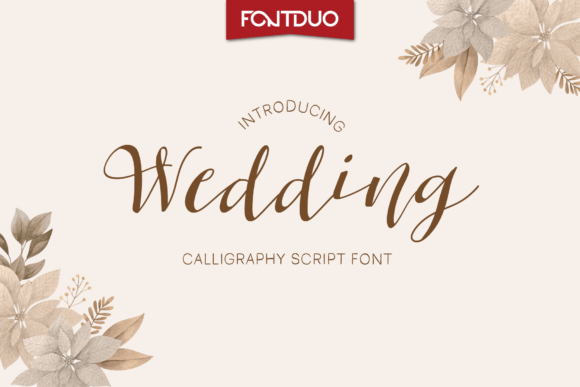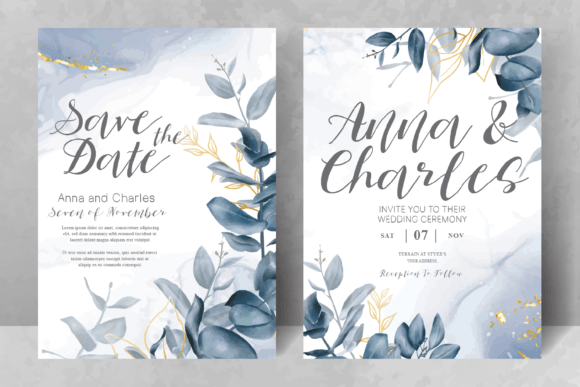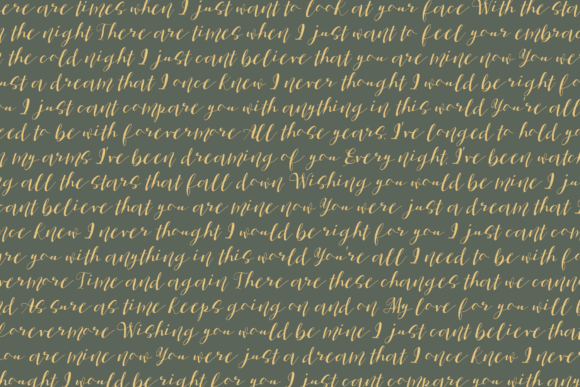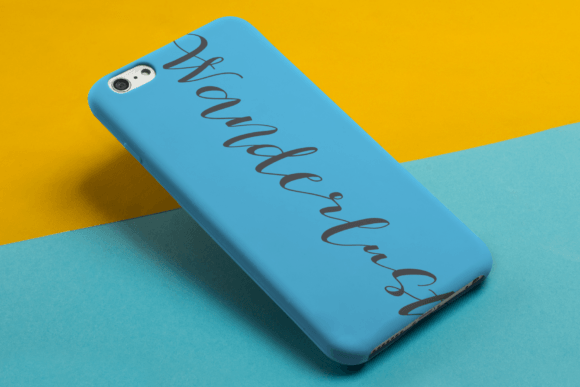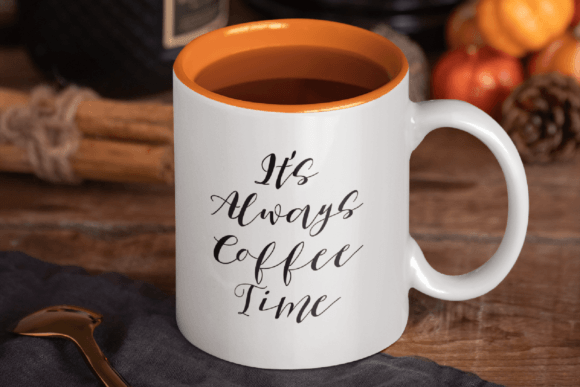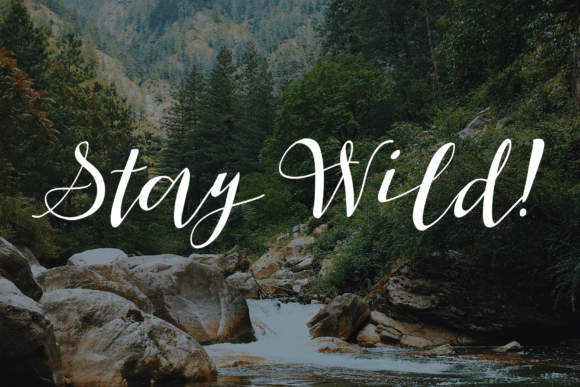
Wedding Script Font
A Delightful and Whimsical Script Font for Creative Projects
Wedding Script Font is a delightful and whimsical script font that adds a touch of sweetness and elegance to a wide range of projects. Whether you’re creating wedding invitations, designing titles, crafting heartfelt letters, or working on various other products, this font is a perfect choice to enhance your designs. Its curly and playful letterforms bring a sense of charm and romance to your projects, making it ideal for both formal and creative designs.
Perfect for Wedding Invitations and Special Occasions
When it comes to wedding invitations, Wedding Script Font truly shines. Its intricate and ornamental design creates a sense of celebration and joy, setting the tone for a memorable event. The font’s curly and swirly characters beautifully frame the text, adding a touch of sophistication and romance to the invitation. Whether you’re designing formal or casual wedding invites, this font will make your designs feel special and unique.
Great for Titles and Headers
For titles and headers, Wedding Script Font brings a unique and eye-catching element to your projects. Its playful curls and loops make the text stand out and add a touch of elegance to your design compositions. Whether it’s for a magazine cover, website header, or poster, Wedding Script ensures your title gets noticed and creates a memorable visual impact.
Ideal for Heartfelt Letters and Messages
Wedding Script Font makes crafting heartfelt letters a joy. The font’s curly and expressive characters add a personal and intimate touch to your words. Whether you’re writing a love letter, thank you note, or special message, Wedding Script helps convey emotion with its charming and delicate appearance. It evokes a sense of warmth and sentimentality, making your letters feel truly special and memorable.
Adds Whimsy and Romance to Your Designs
Overall, Wedding Script Font is a sweet and curly script font that enhances a variety of projects with its charm and elegance. Whether you’re designing wedding invitations, creating titles, writing letters, or working on other products, this font adds a touch of whimsy and romance. Its playful curls and loops will help you create captivating and memorable designs that leave a lasting impression on your audience.
Easy to Use and Versatile
Wedding Script Font is not only beautiful but also versatile and easy to use. Whether you’re designing for digital media, print materials, or craft projects, this font adapts to various applications. It ensures that your projects look polished and professional while still maintaining a playful, personal touch.